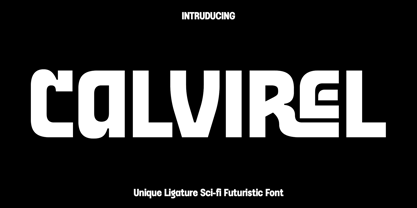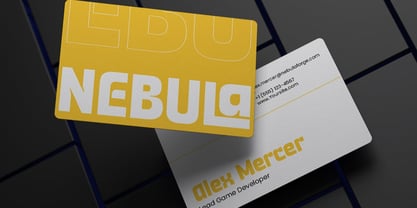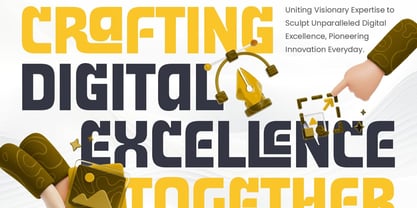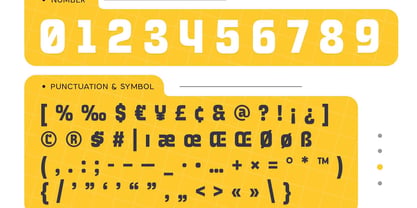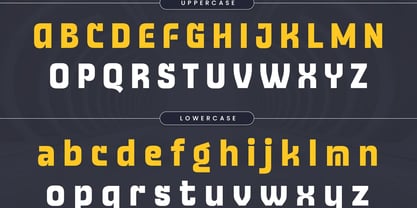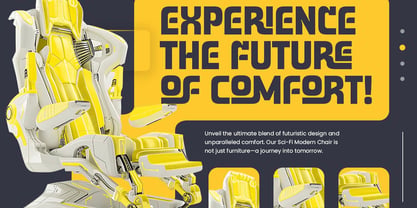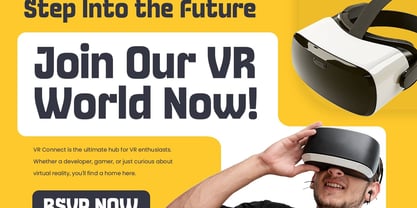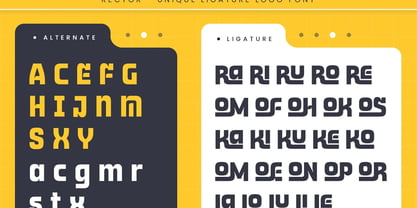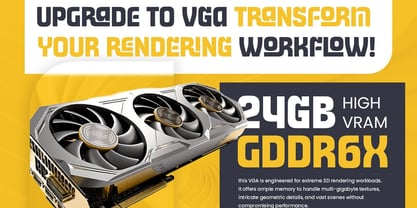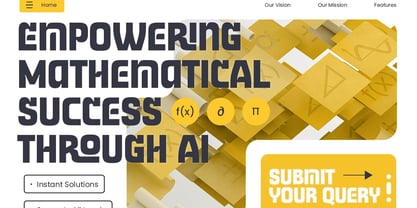
Calvirel
por Only Fonts
La familia tipográfica Calvirel fue diseñada por Olivia Love y publicada por Only Fonts. Calvirel contiene 1 estilos. Más información sobre esta familia
Calvirel – Sci-Fi Futuristic Ligature Logo Font Calvirel is a modern sci-fi ligature logo font designed to infuse innovation, precision, and futuristic energy into your creative projects. Drawing inspiration from advanced technology, digital interfaces, and science fiction aesthetics, Calvirel showcases sleek geometric letterforms and distinctive ligatures that create a bold and memorable visual identity. Each character is meticulously crafted to deliver a clean, high-tech appearance while ensuring excellent readability and versatility. Ideal for technology brands, gaming studios, esports teams, startups, software companies, digital products, movie titles, futuristic branding, app interfaces, websites, and creative marketing materials, Calvirel transforms ordinary typography into a striking futuristic statement. Its unique ligature combinations empower designers to create custom-looking logos and headlines effortlessly, giving every project a modern and innovative edge. Calvirel is tailored for designers seeking typography that embodies progress, creativity, and forward-thinking design. The balanced structure and sharp details make it equally effective for both digital and print applications, ensuring your branding remains professional, impactful, and visually distinctive. Whether crafting a cutting-edge logo or developing a complete visual identity, Calvirel provides the confidence and originality necessary to stand out in today's competitive creative landscape. With its futuristic personality and premium craftsmanship, Calvirel is an essential typeface for projects that demand modern aesthetics, technological inspiration, and unforgettable branding. Calvirel Font Features: • Unique ligature characters • Futuristic sci-fi logo style • Uppercase and lowercase letters • Numerals, punctuation, and symbols • OpenType features • Multilingual support • Perfect for technology, gaming, branding, logos, and digital products • Suitable for both print and digital projects
Diseñadores: Olivia Love
Fundición: Only Fonts